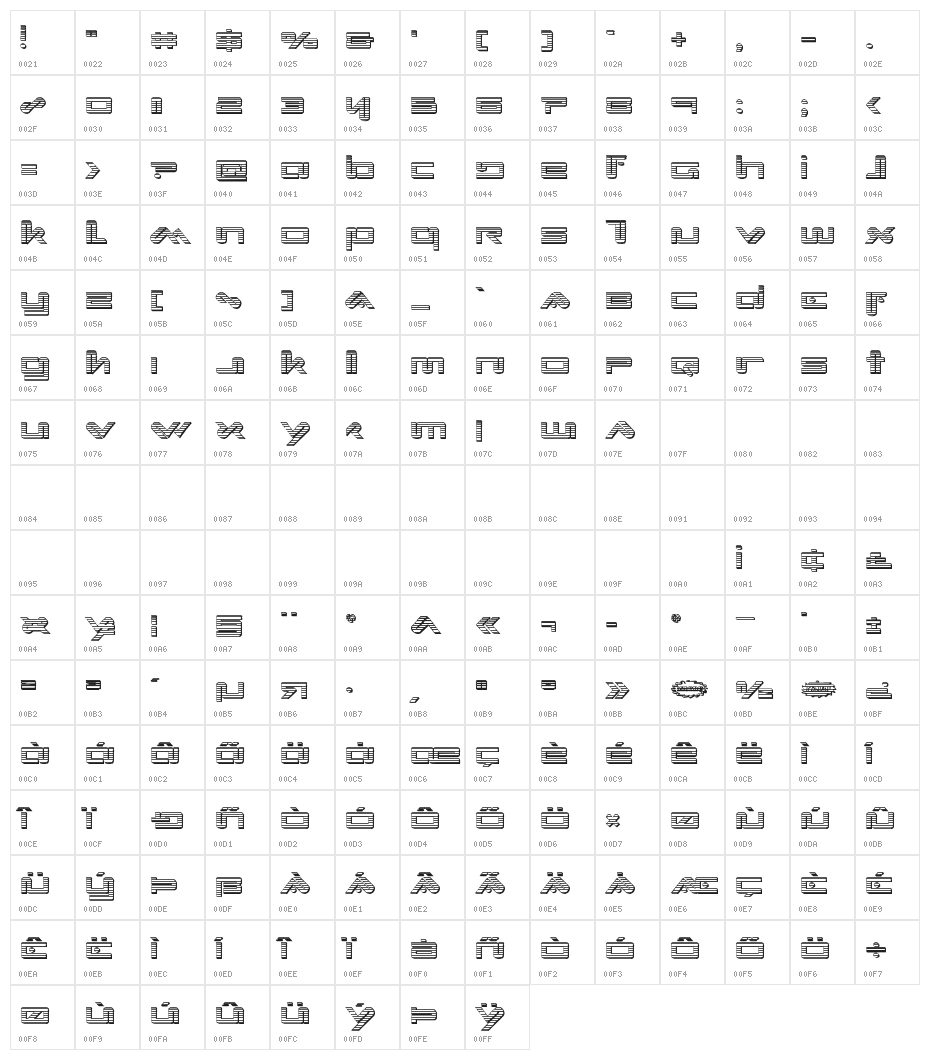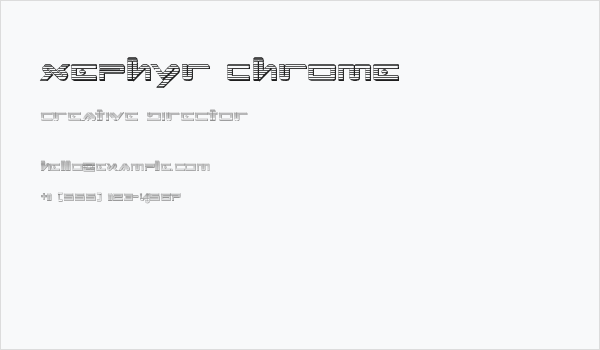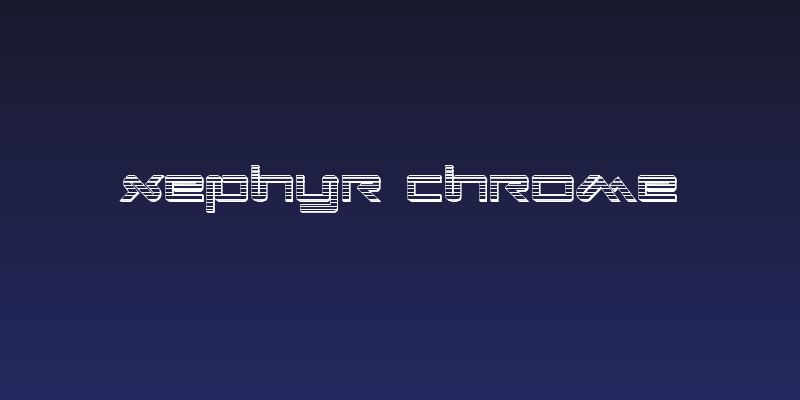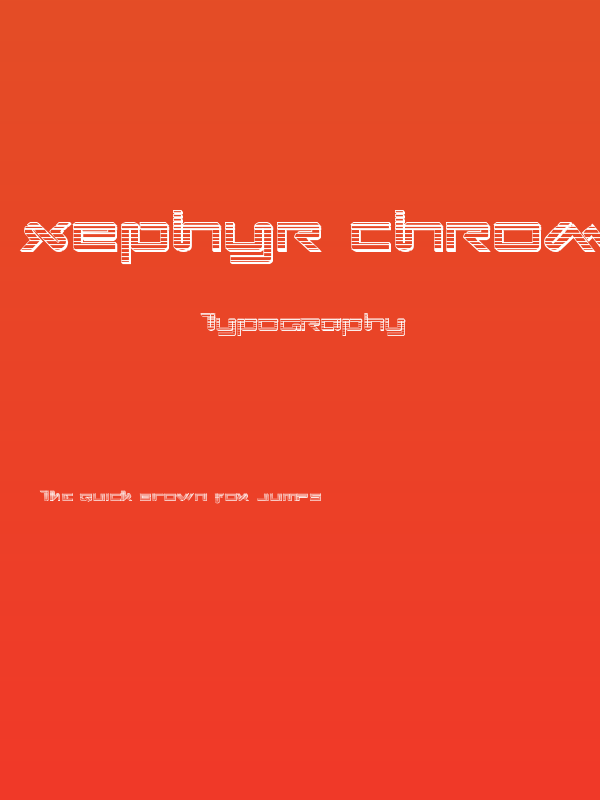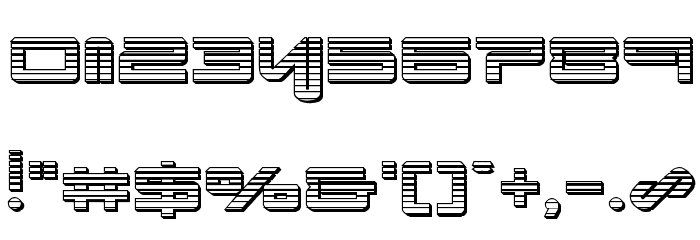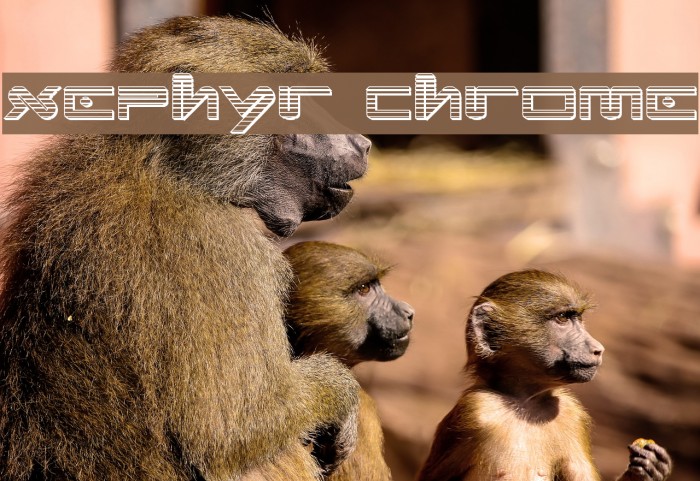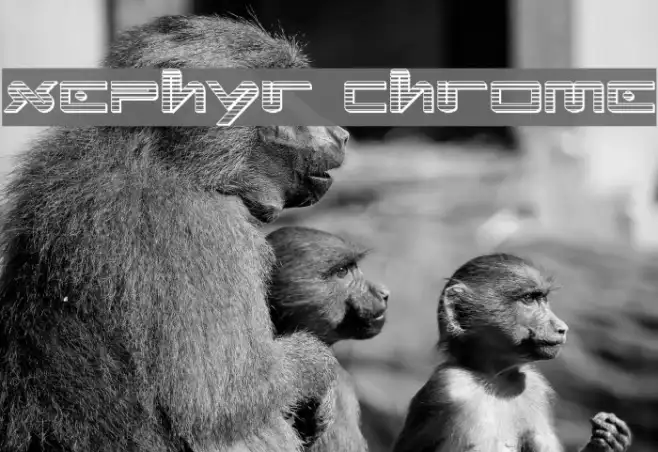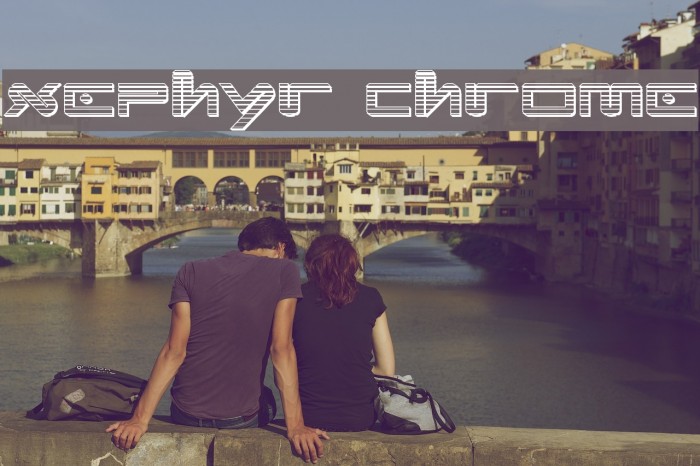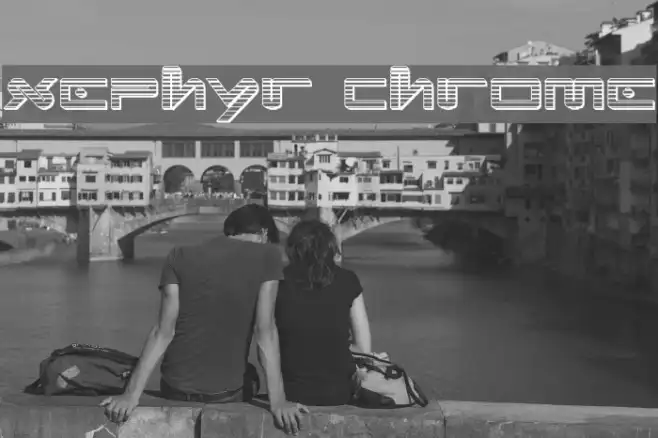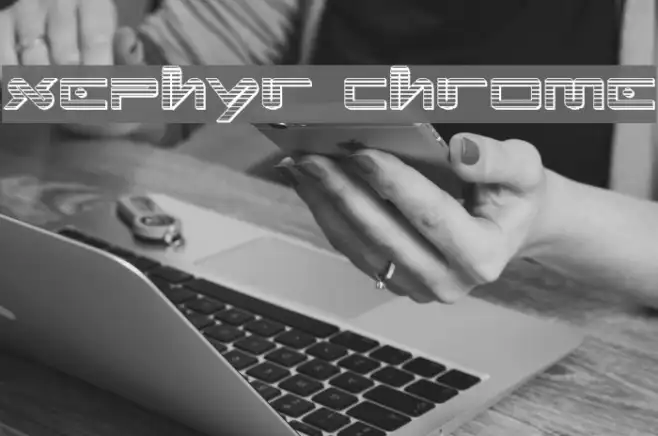
Xephyr Chrome Font
Xephyr Chrome Description
This font features a unique, futuristic design characterized by a series of parallel lines forming each character, giving it a three-dimensional, layered appearance. The letters are constructed with a geometric precision, creating a sense of depth and movement. Each character is distinct, yet they all share a cohesive style that is both modern and dynamic. The font's intricate detailing and bold structure make it stand out, while maintaining readability. It is ideal for projects that require a cutting-edge, tech-inspired aesthetic.
| Proposed Projects | Ideal for tech branding, sci-fi posters, video game titles, and futuristic-themed designs. |